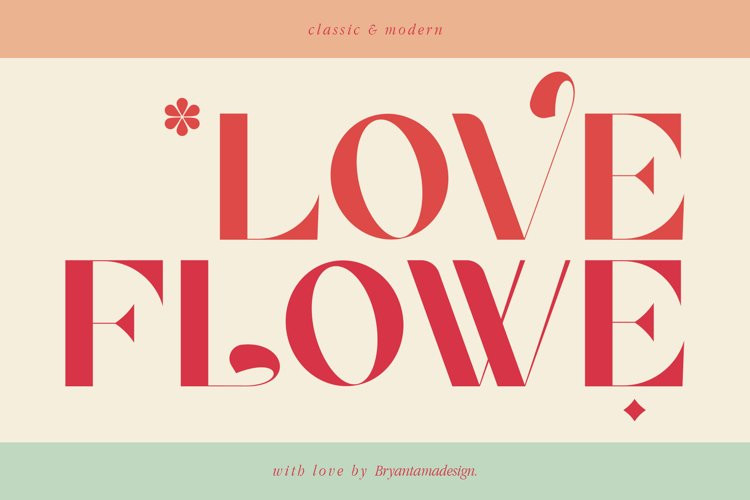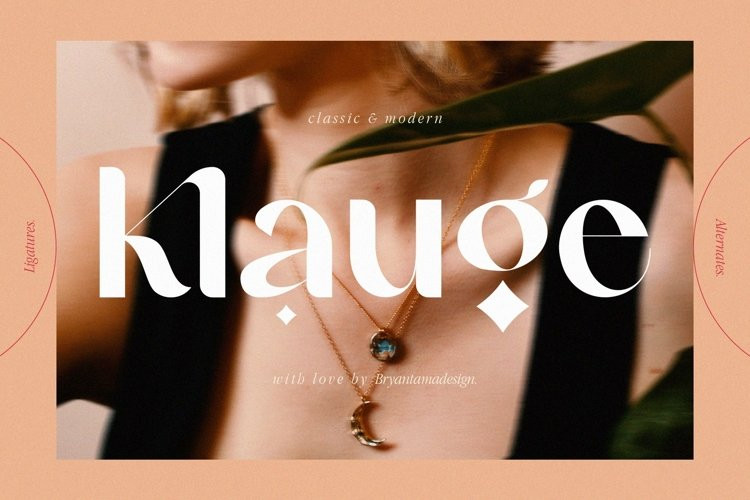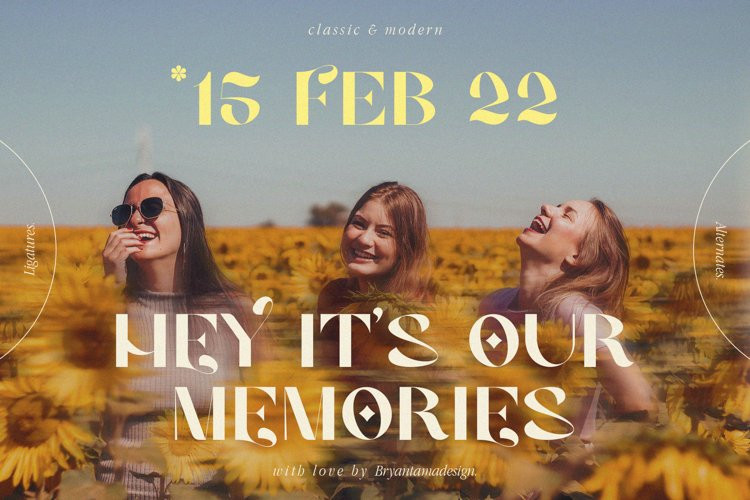
Klauge Font
Klauge FontIntroducing Klauge. Classic & Modern Typeface.
Inspired by a classy theme with magical feels that makes the font has a unique personality. You can use it for Vintage/classic or modern themes, branding, social media, posters, packaging, & more.